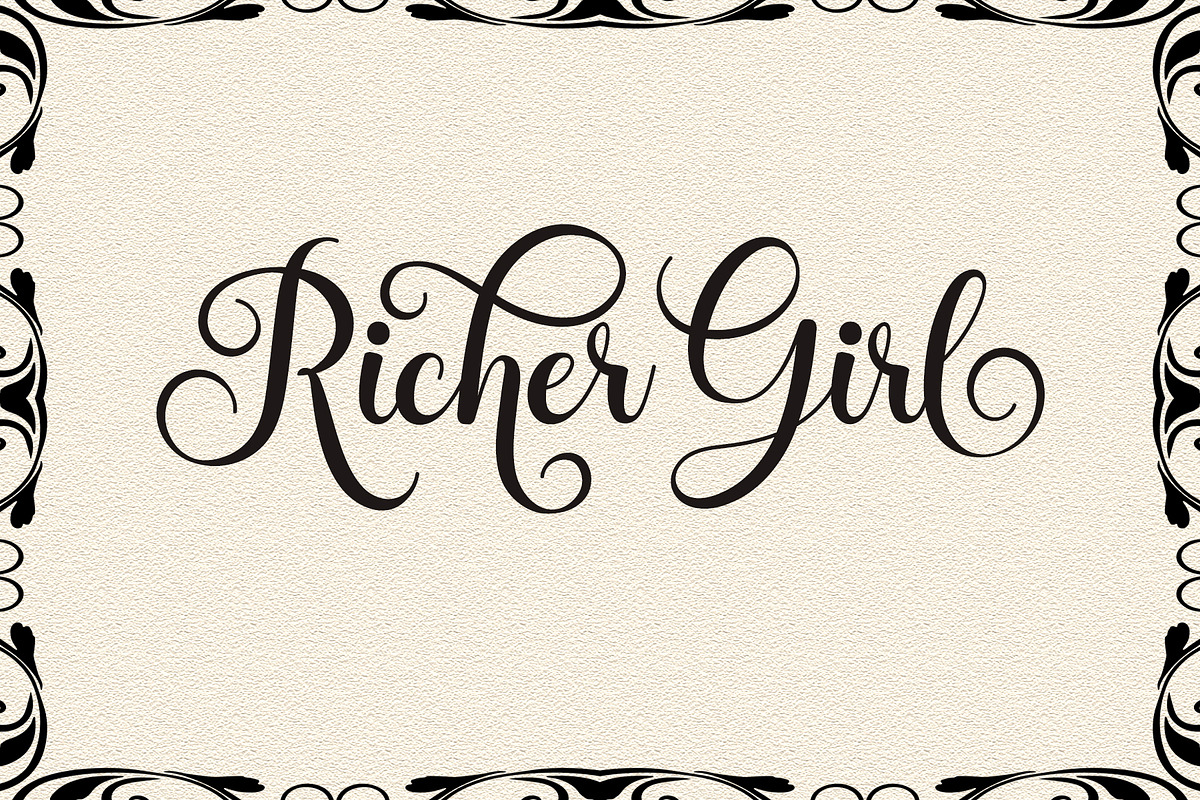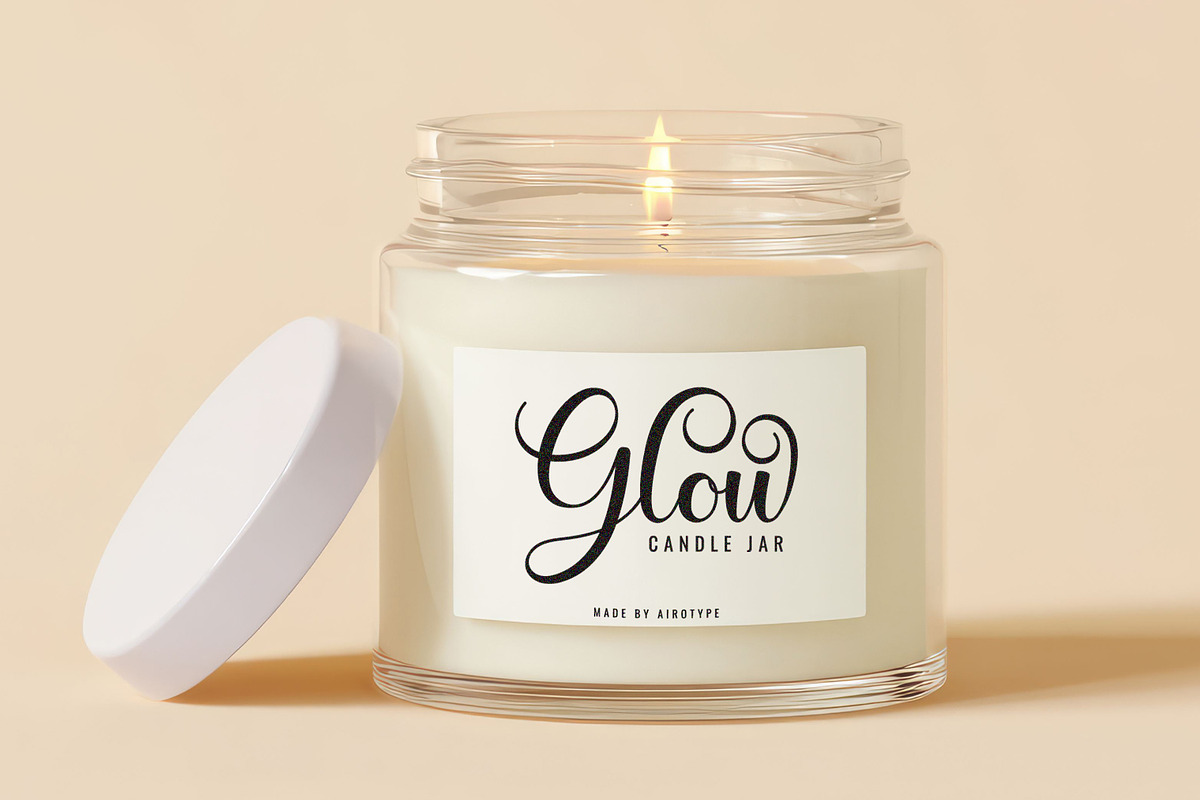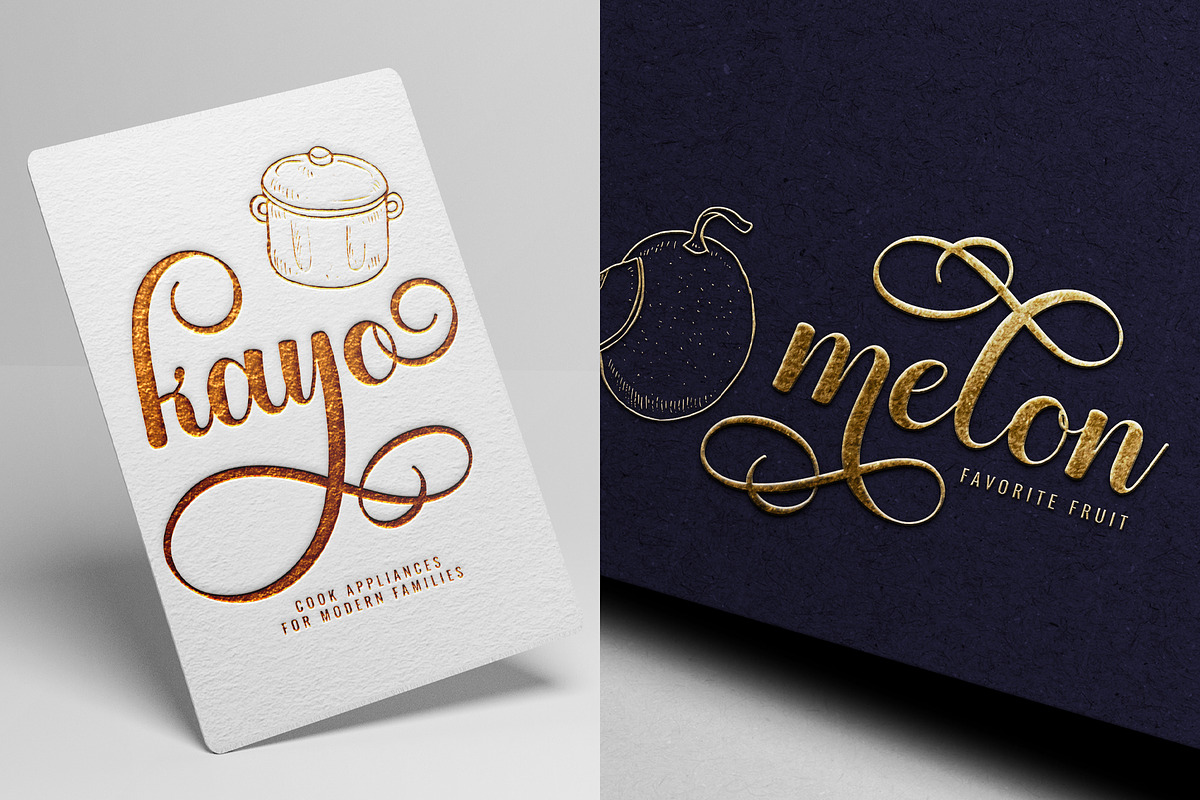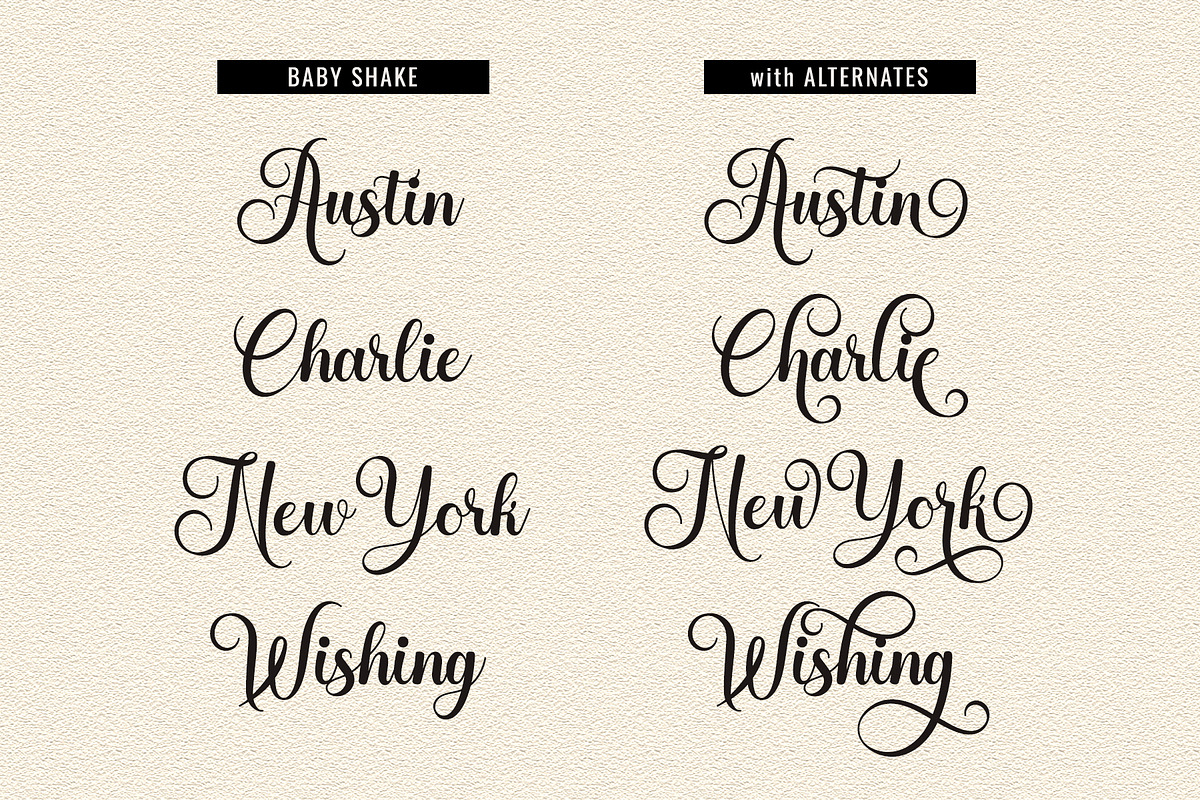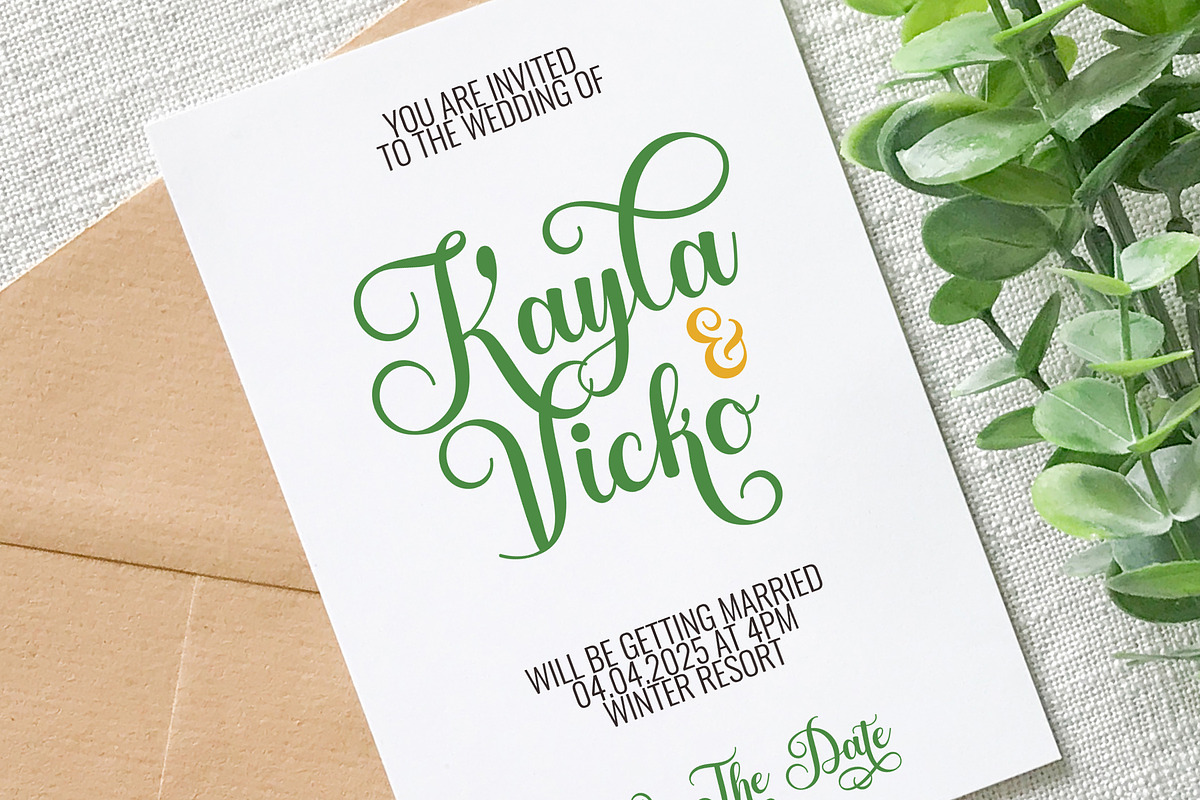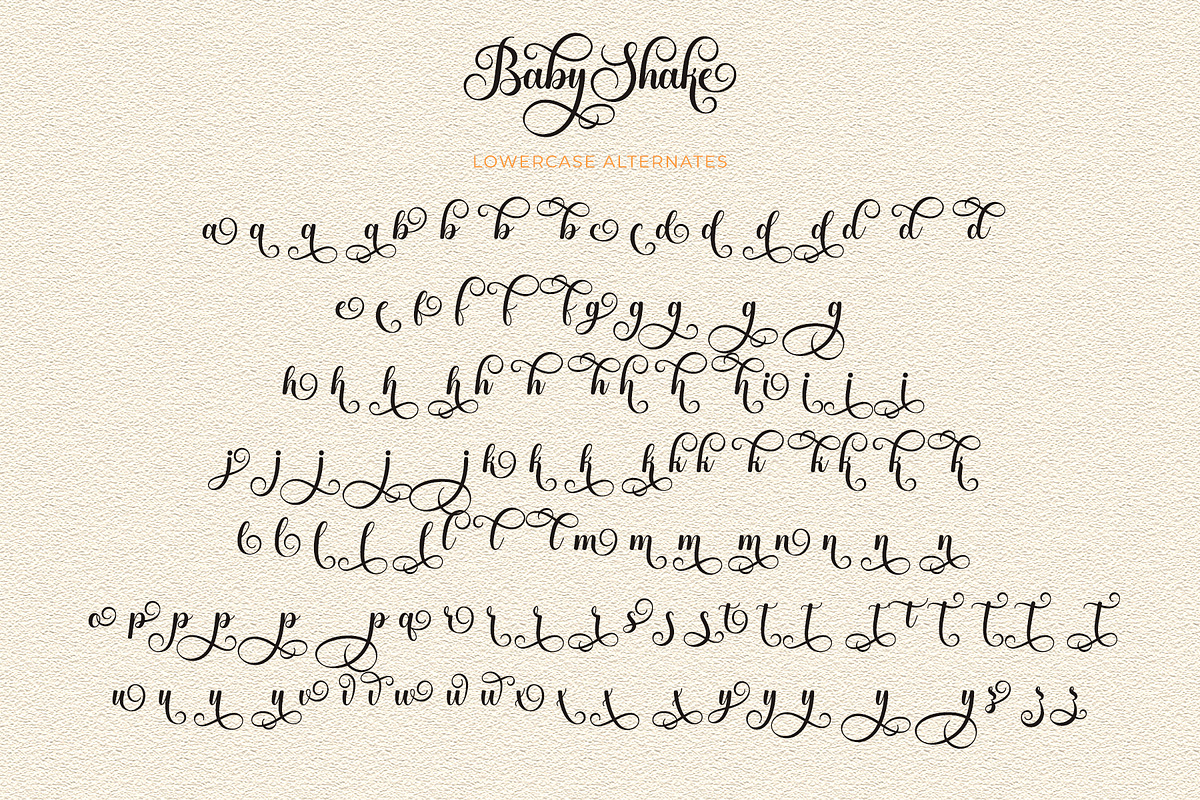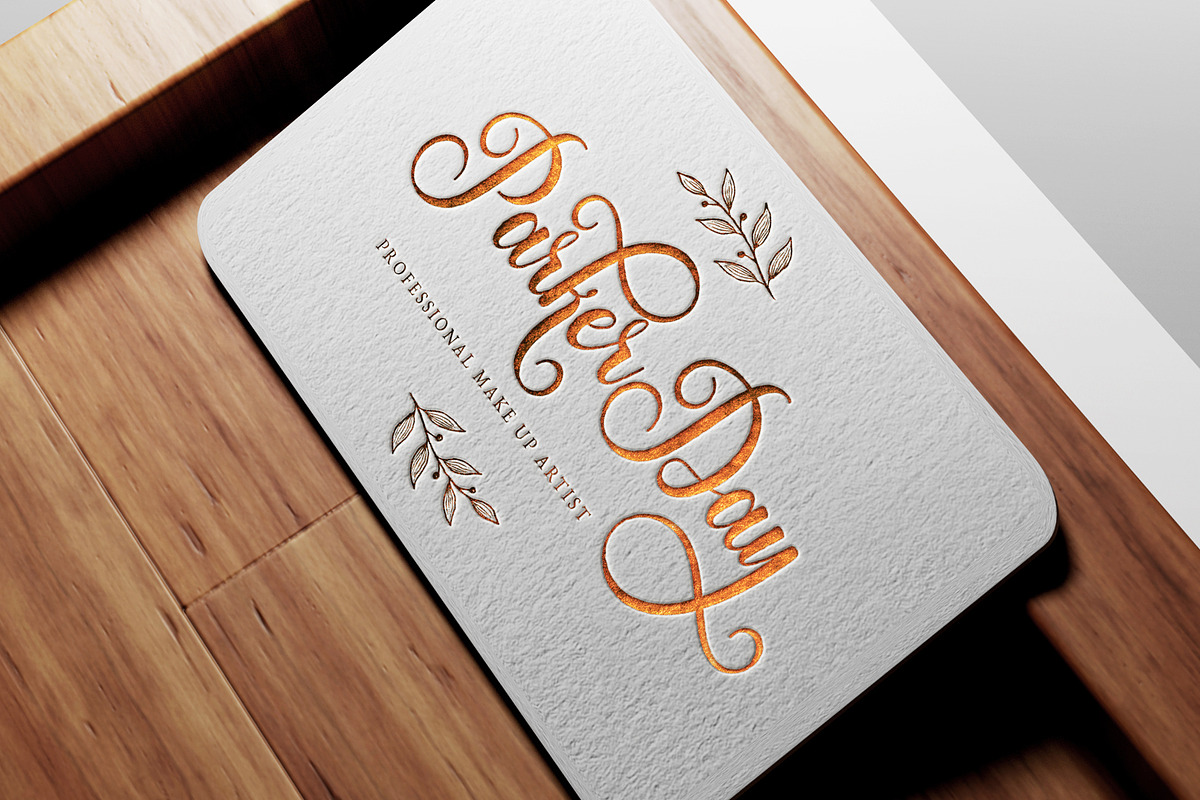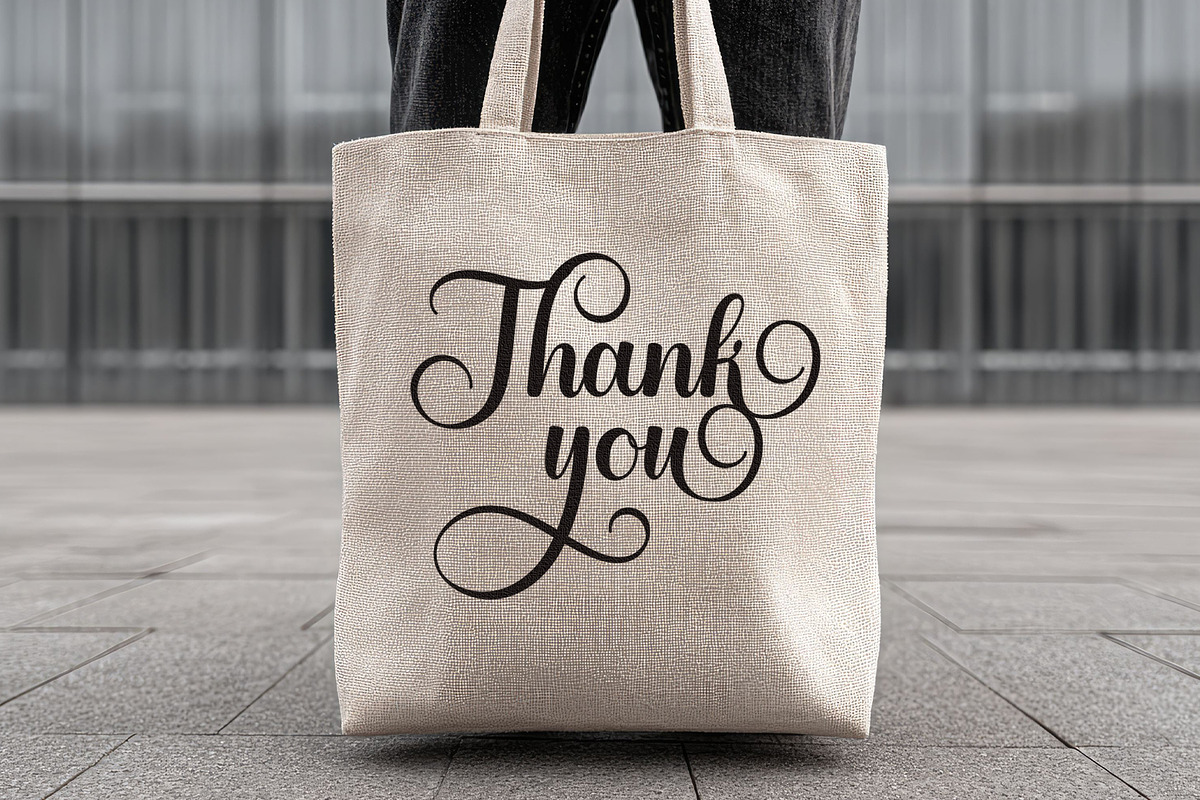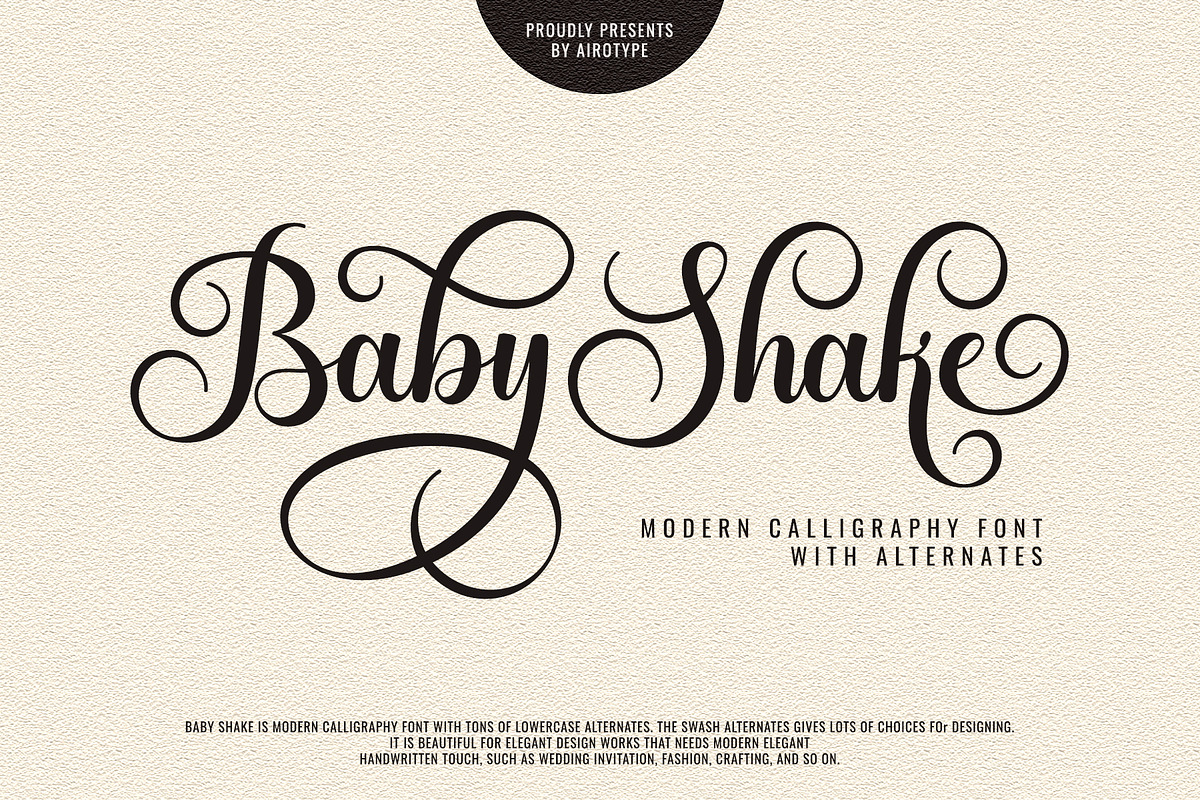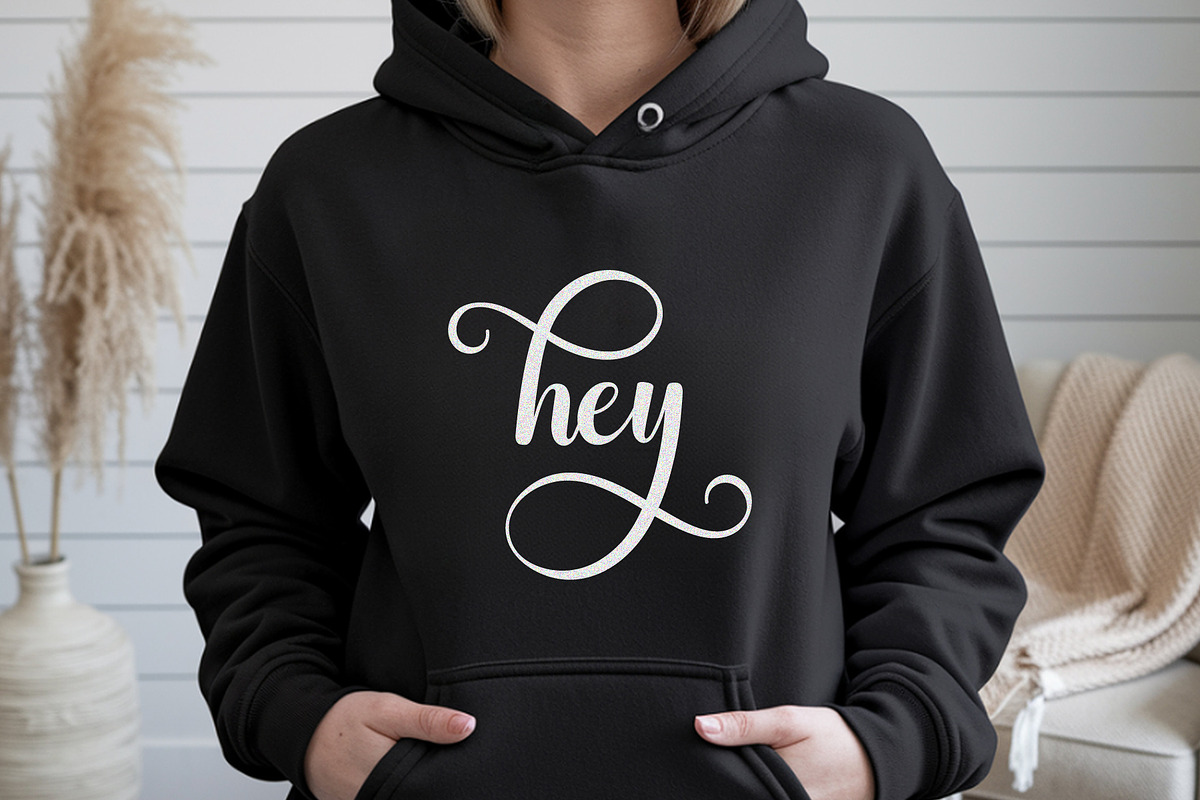
Baby Shake - Luxury Calligraphy Font
Baby Shake is luxury calligraphy font.This font represent elegance, modern, and girly.
Baby Shake has tons of swirl alternate for its lowercase. It can be accessed with Font Book (Mac) or Character Map UWP (PC). Make sure you know how to access extra glyphs in the program you are using.
This font is luxury beautiful for design that needs elegant and modern touch, such as wedding design, Valentine's Day, birthday, invitation, logo, poster, t-shirt design, crafting, sticker, sublimation, and many more.
- Uppercase & Lowercase (with alternates/extra glyphs)
- Most Multilingual Accent